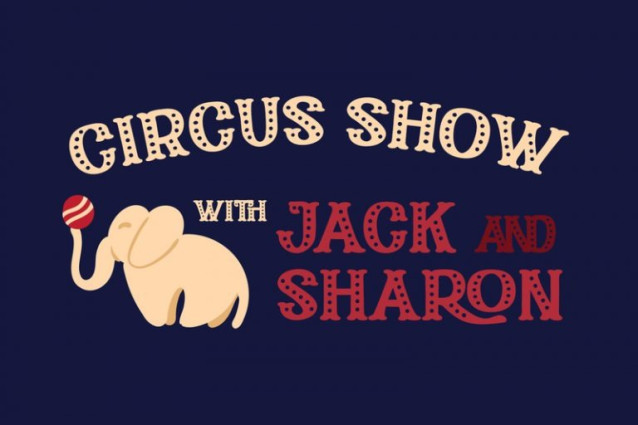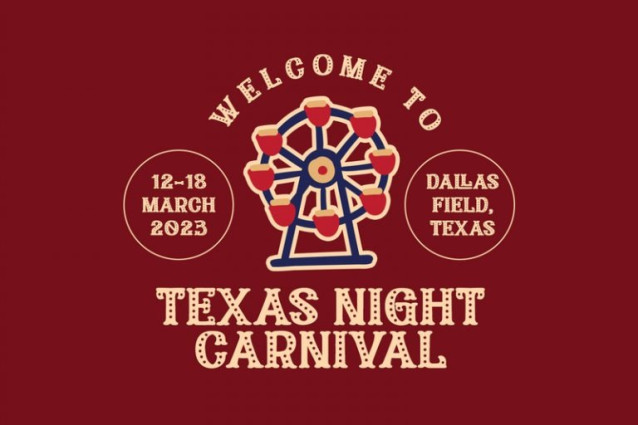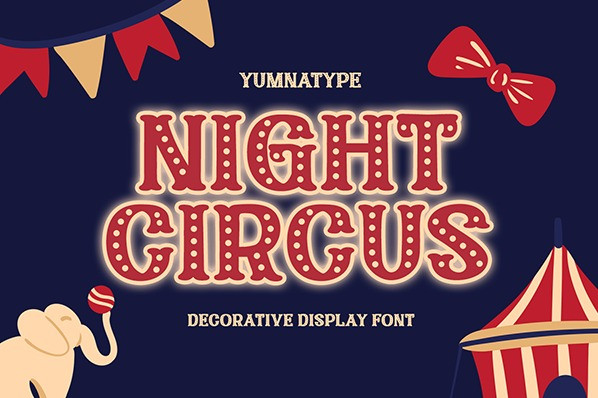
Night Circus Font
Night Circus Font is a capitalized display font in a circus theme having unique, interesting designs with big, prominent letter sizes to catch attention. All of its letters are peculiarly designed in bright colors and many decorative circus elements. The power-expressing big, thick letters are perfect to use in power, boldness message-delivering designs.
The advantages of Night Circus font, which provides a clipart in line with the theme, are the abilities to produce unique, charming nuances to your designs and to make your products more interesting which increases the products’ attractiveness. You can use it in big text sizes to be greatly legible and enjoy the available features here.